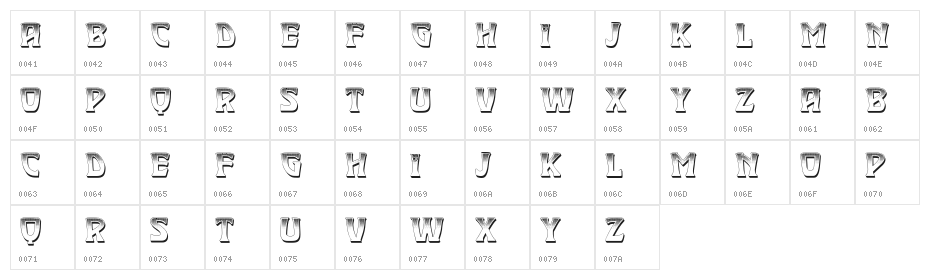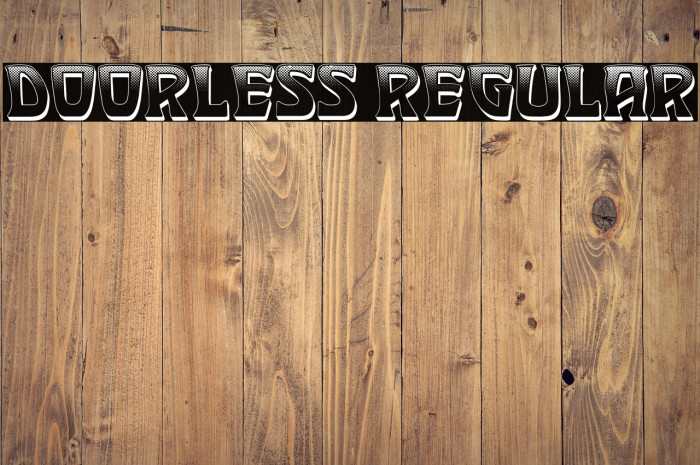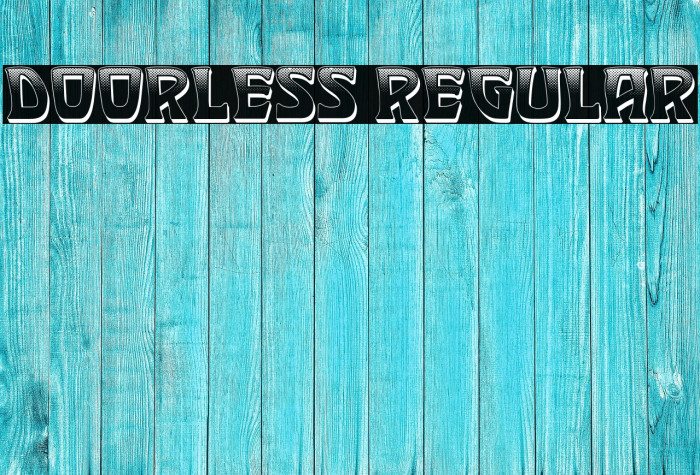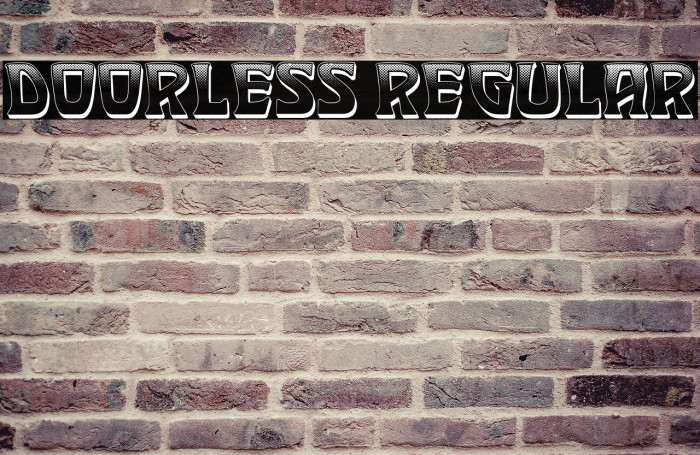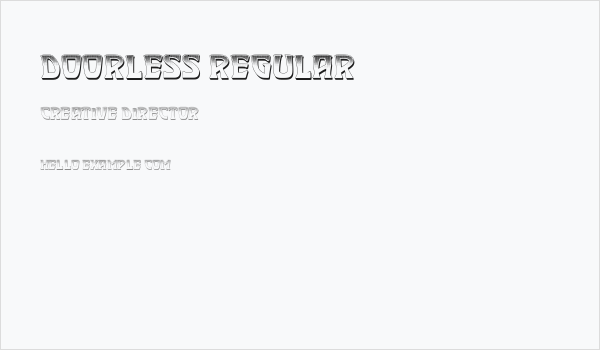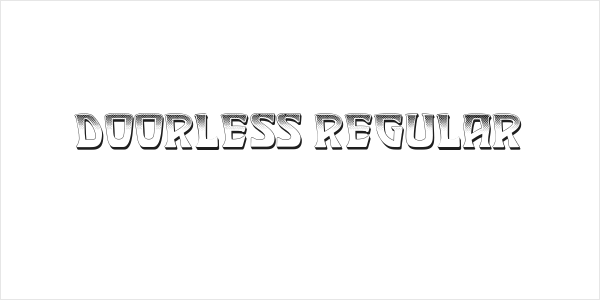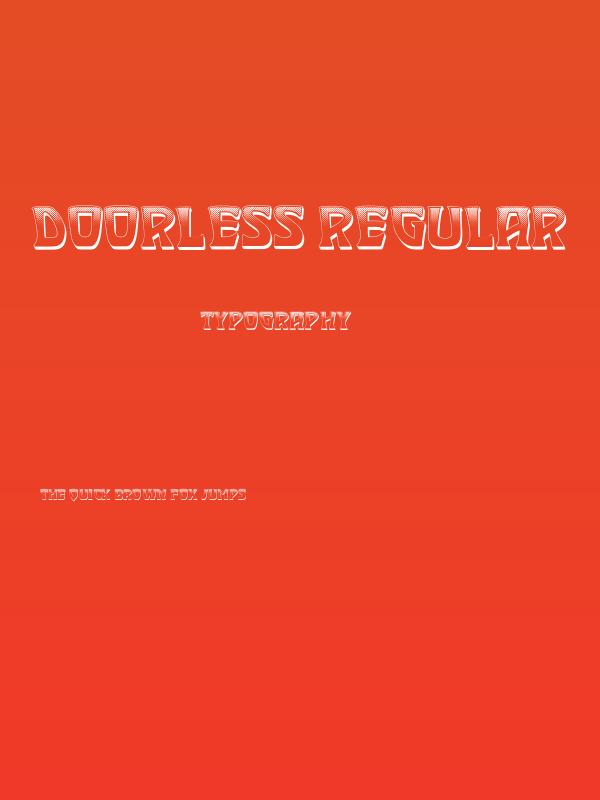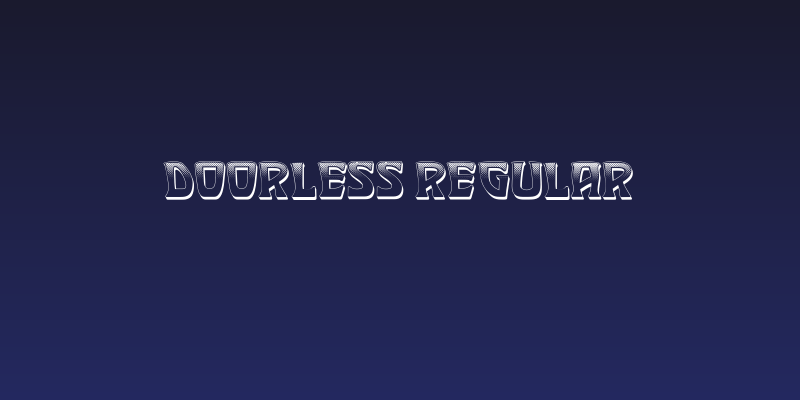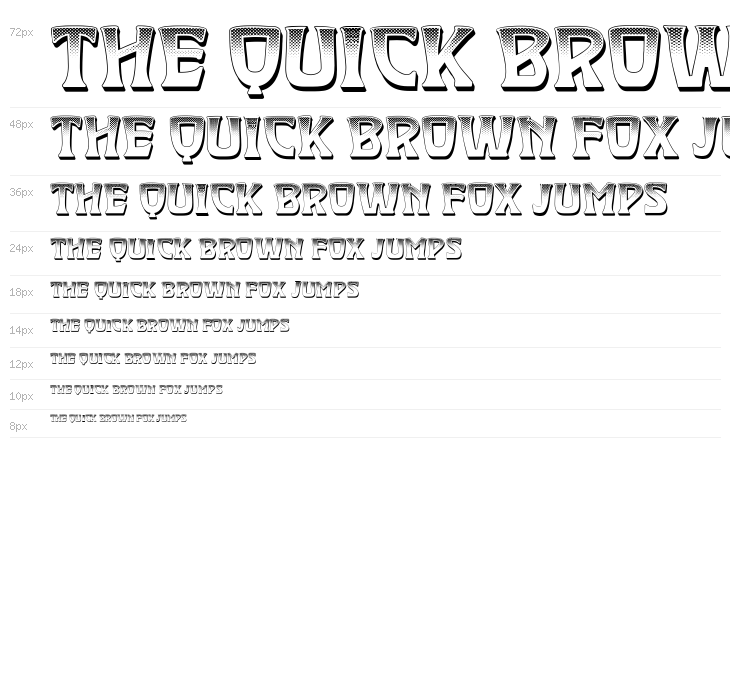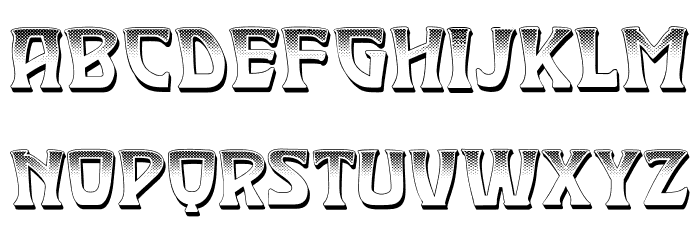
Doorless Regular Font
Doorless Regular Description
This font features a bold and dynamic style with a three-dimensional effect, achieved through a combination of thick outlines and shadowing. The characters are uppercase only, with a unique, slightly condensed form that gives them a strong presence. The inner detailing of each letter includes a dotted pattern, adding texture and depth. The overall design is reminiscent of vintage or retro styles, making it suitable for eye-catching headlines or logos. The letters have a consistent height and width, ensuring uniformity across the typeface. The boldness of the font is balanced by the intricate detailing, creating a visually appealing contrast.
| Proposed Projects | Ideal for retro-themed posters, vintage branding, eye-catching headlines, and logos. |